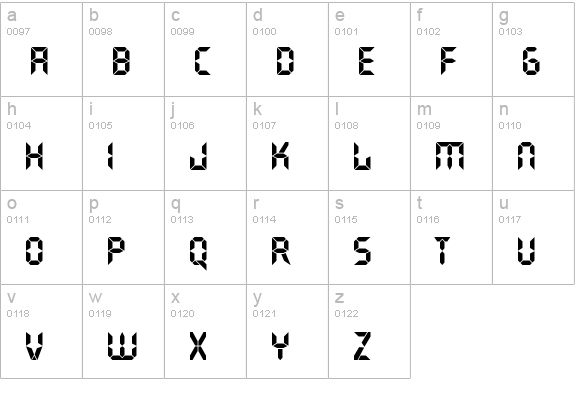
Transistor Regular Font Details
Transistor Regular is the standard, neutral variant in the Transistor typeface family \xE2\x80\x94 well suited to general body text, paragraphs, and standard typographic work.
Transistor Regular font is a sleek and modern typeface that exudes elegance and sophistication. With its clean lines and balanced proportions, it is perfect for a wide range of design projects, from branding and advertising to web and print materials. The distinctive character of Transistor Regular font lies in its versatility. Its timeless design makes it suitable for both headlines and body text, allowing for seamless integration into any layout. Whether you're designing a logo, creating a brochure, or crafting a website, this font will add a touch of class and professionalism to your project. But what sets Transistor Regular font apart is not just its impeccable style and functionality. It is also available for free download at FontsMarket.com, making it accessible to designers and enthusiasts alike. This means that you can bring your creative visions to life without any additional cost, while still maintaining the highest quality in your designs. So don't miss out on this amazing opportunity to enhance your typography arsenal with Transistor Regular font. Download it for free at FontsMarket.com and unleash your creativity with this versatile and elegant typeface.